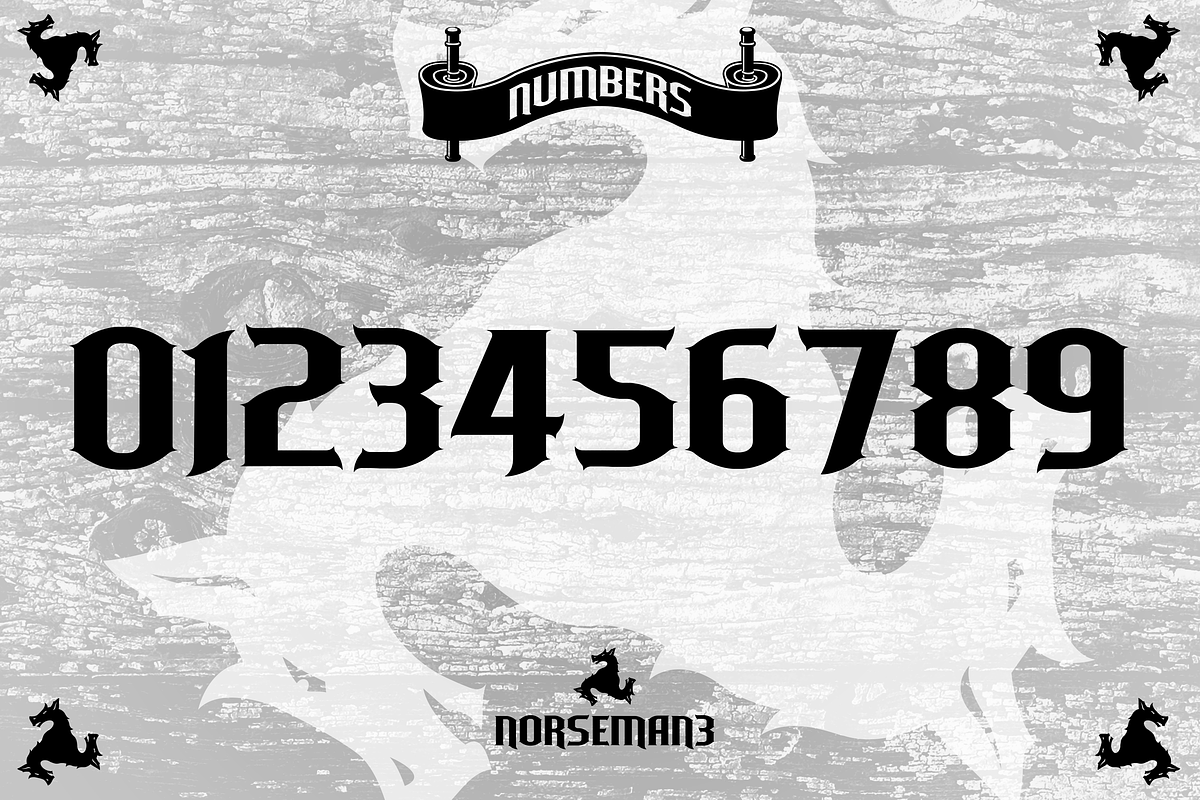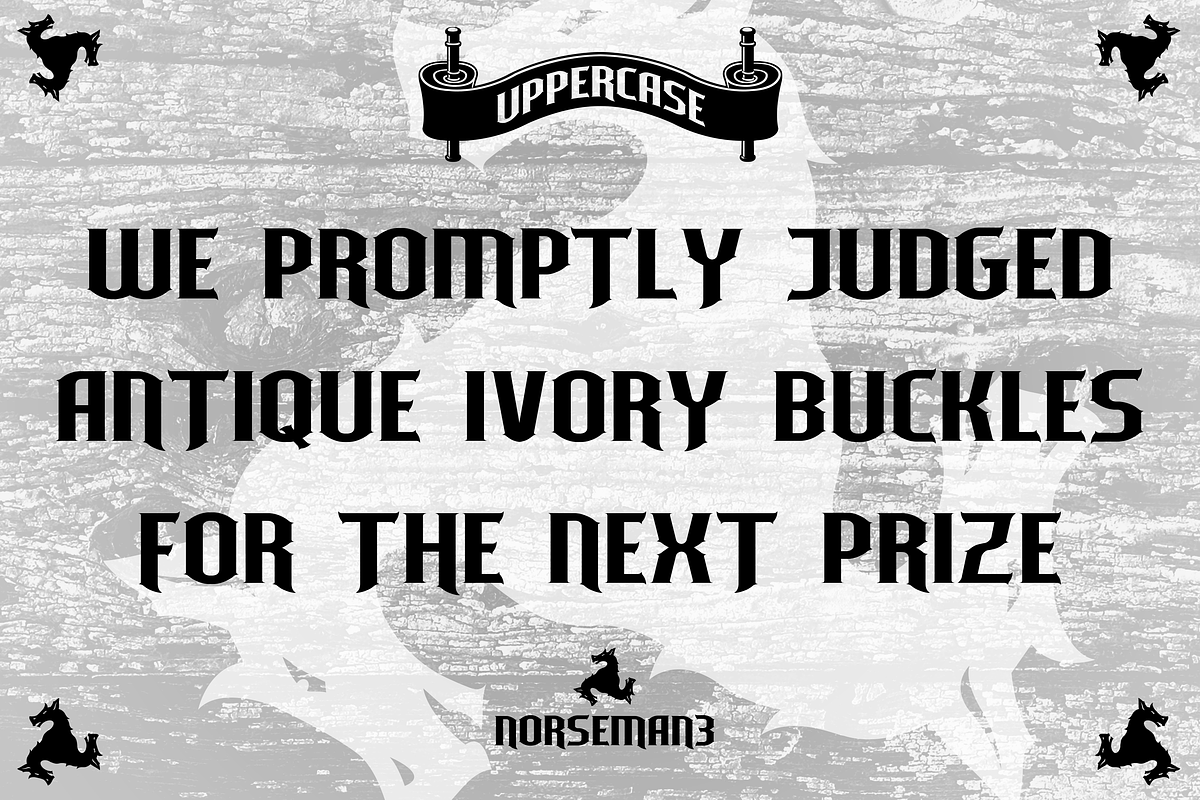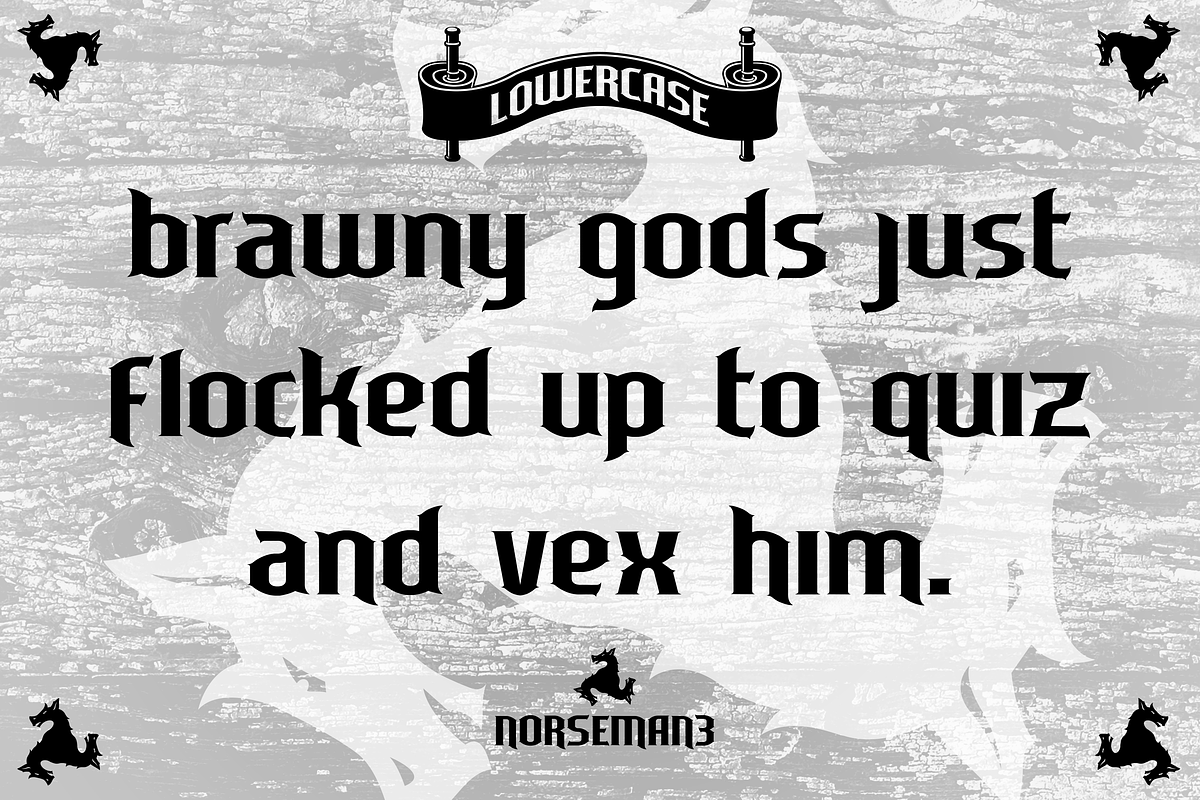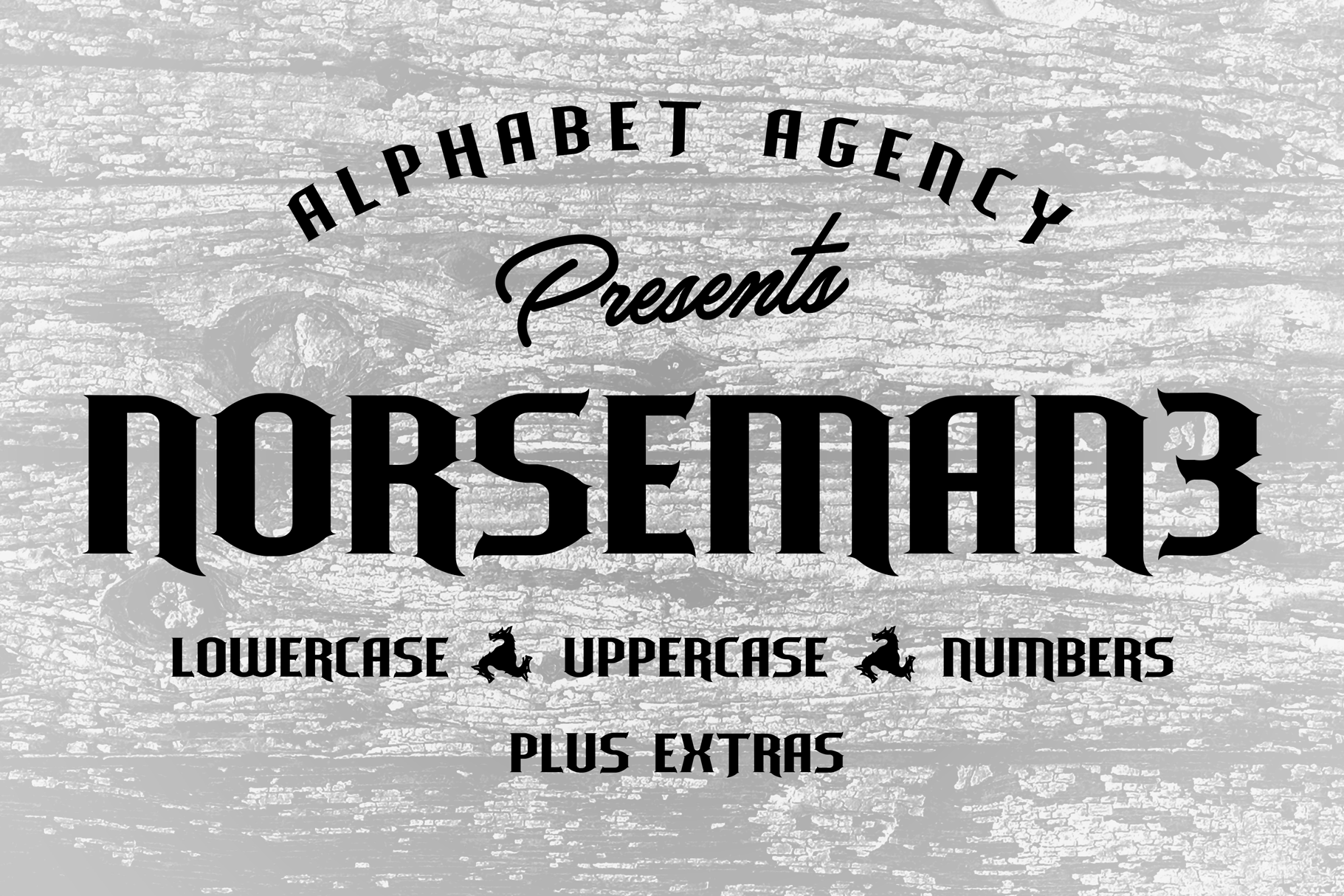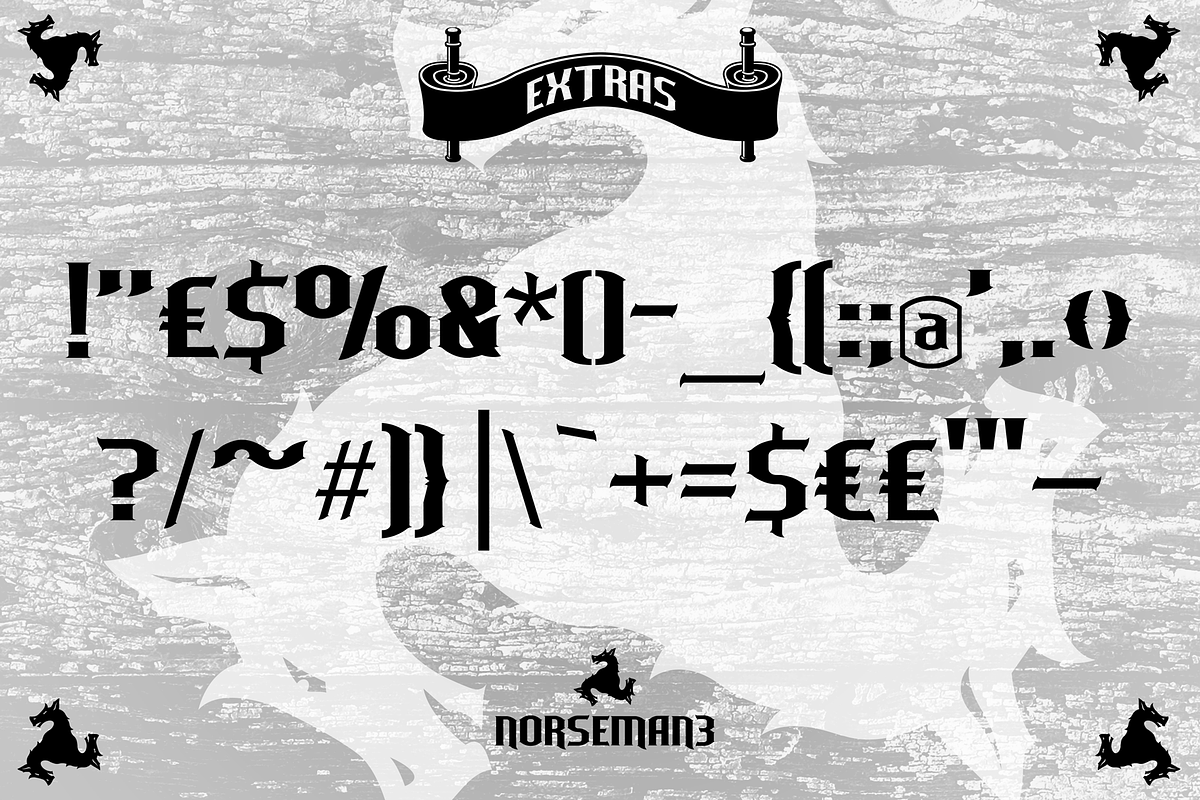
Norseman 3 Font
Forged to be as imposing as a Norse horde ready to stampede into battle, Works great in all caps which it was initially designed to. I designed the lowercase glyphs to match really well with each other and the uppercase, so it works well in title case. Plus it has a great set of looking numbers and loads of extras. Fully kerned pairs so all letter combinations look great